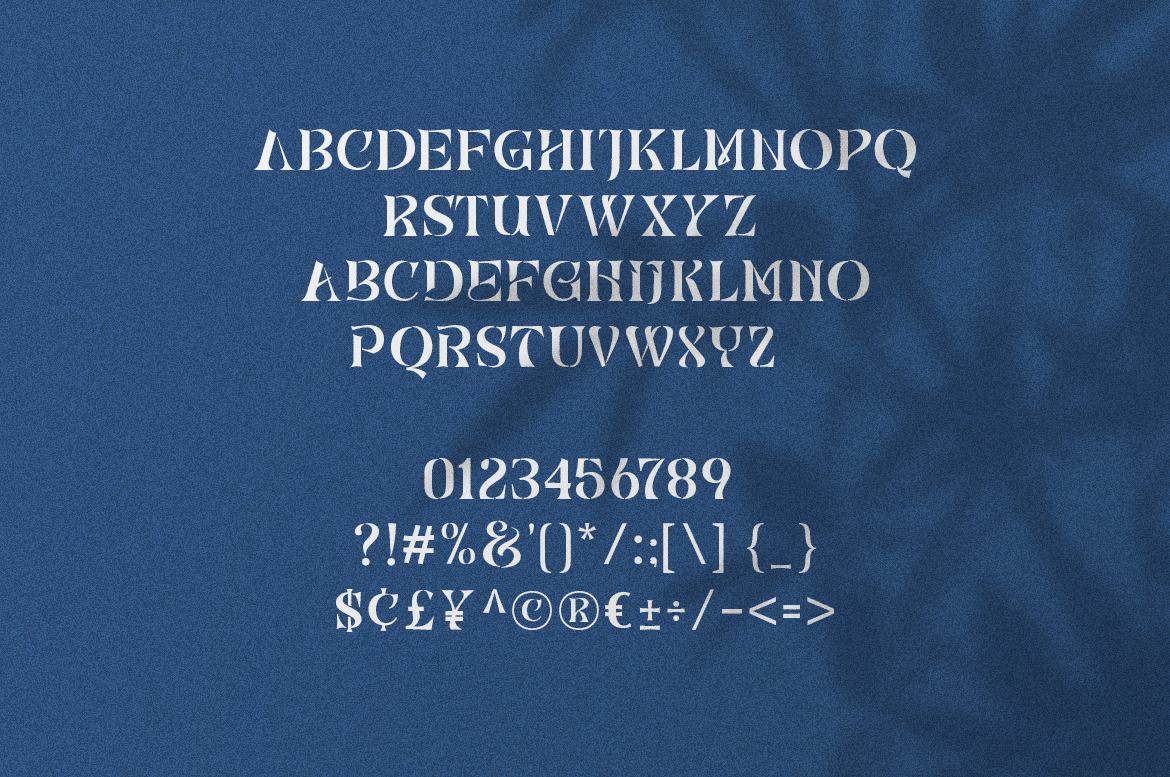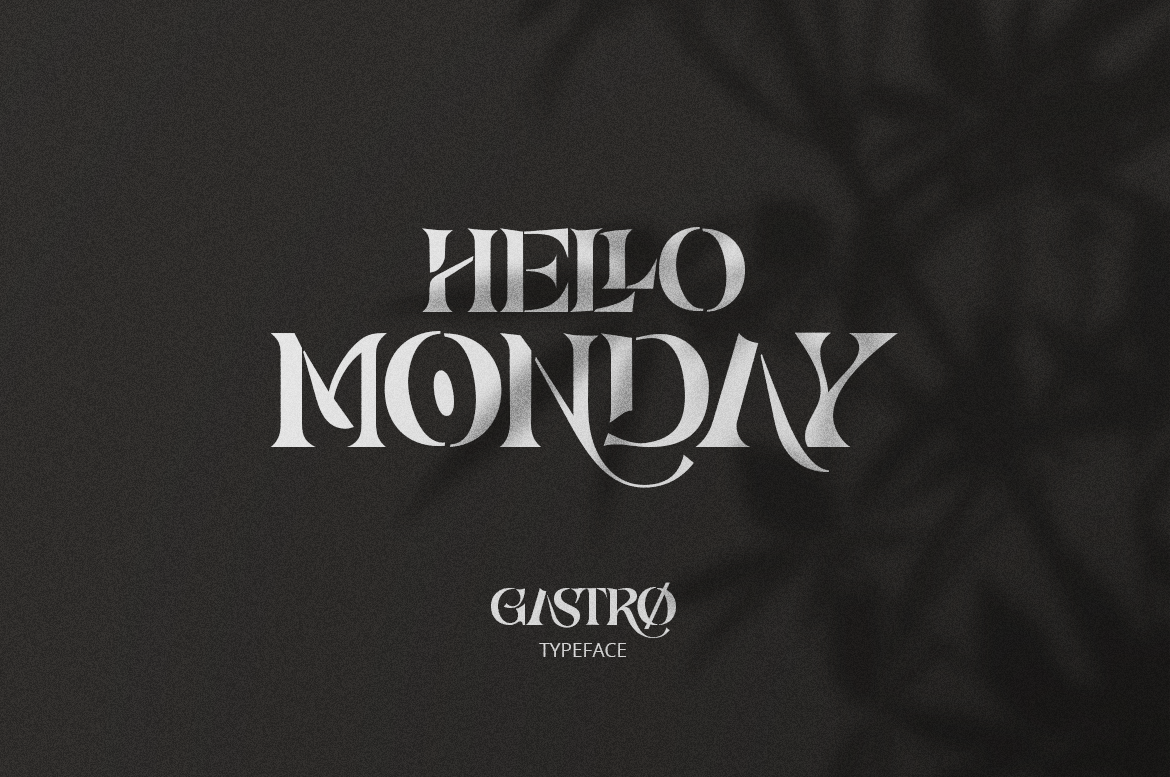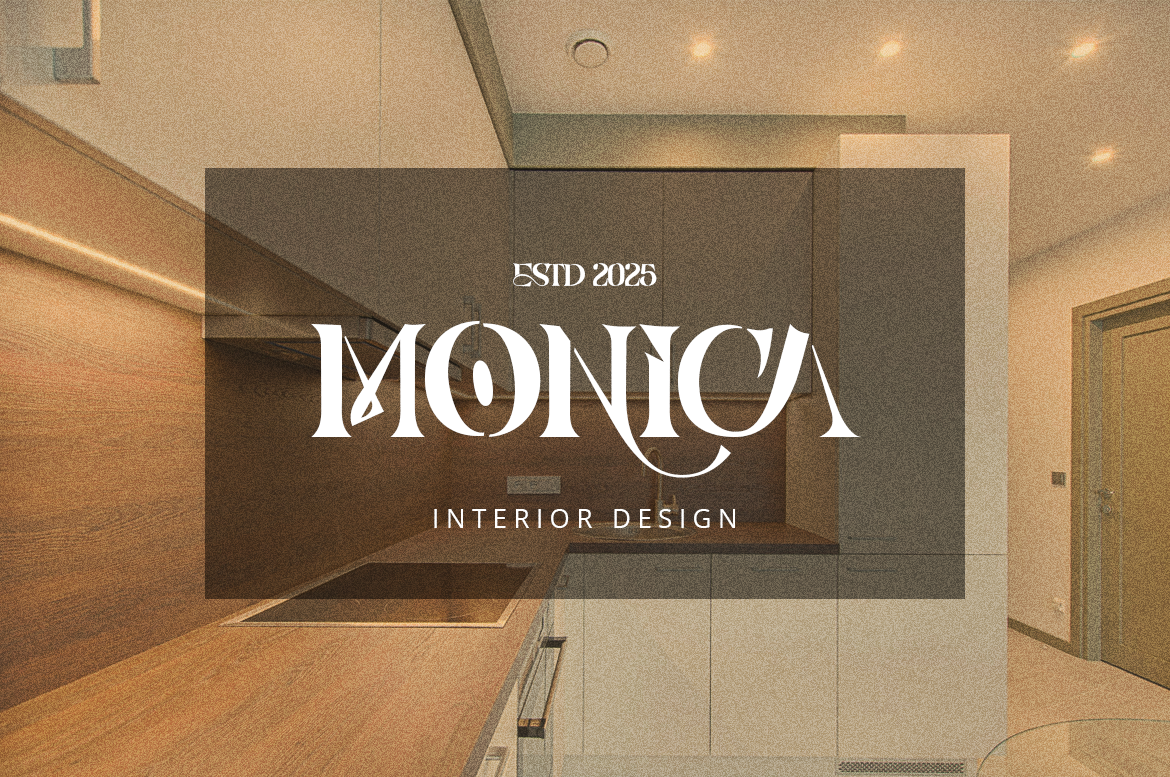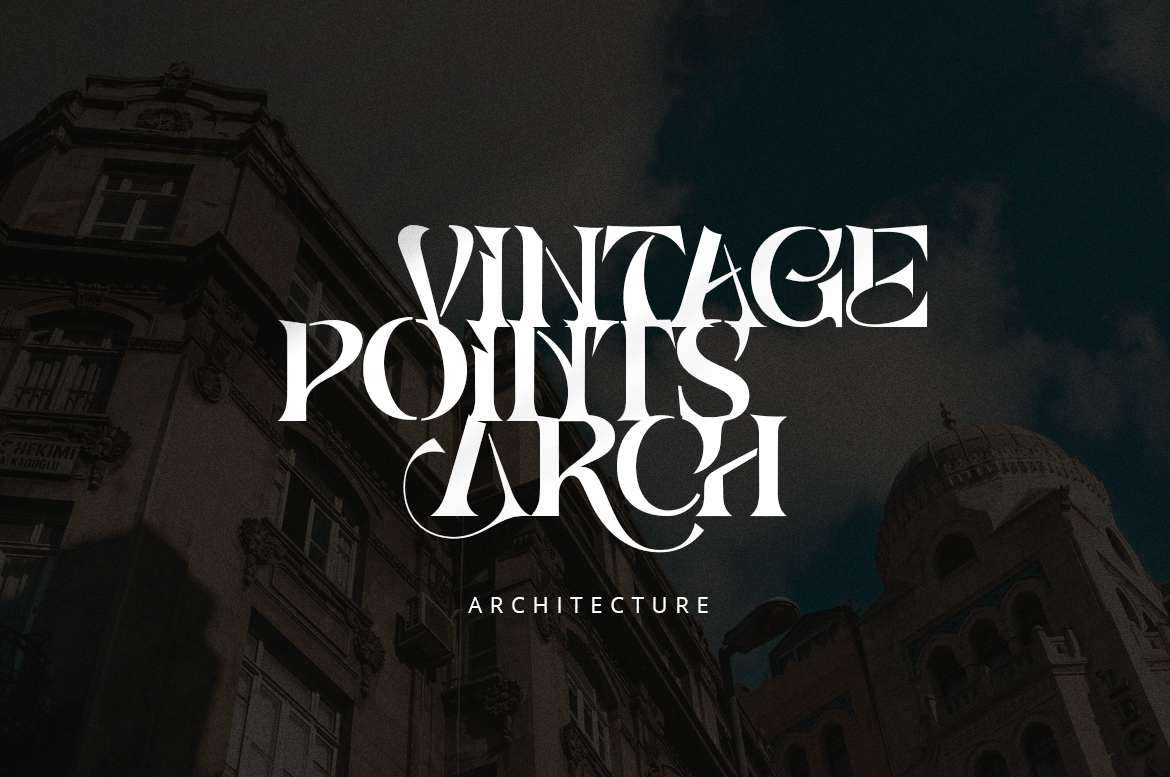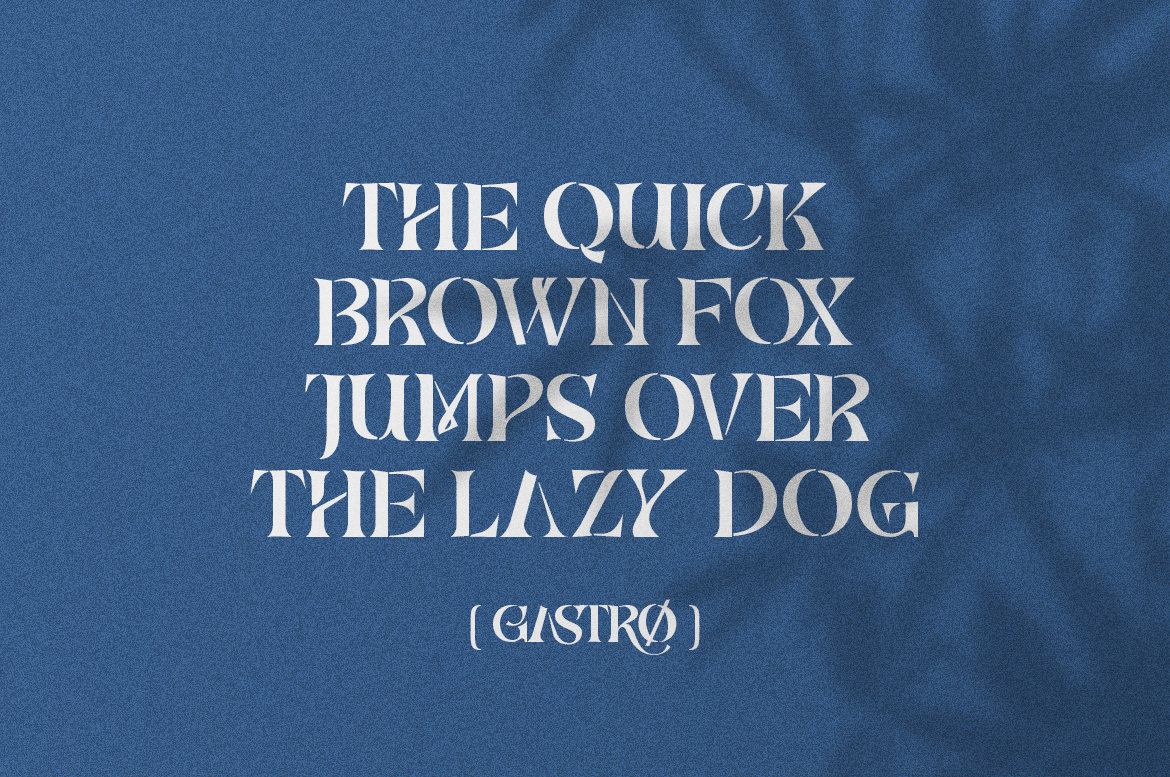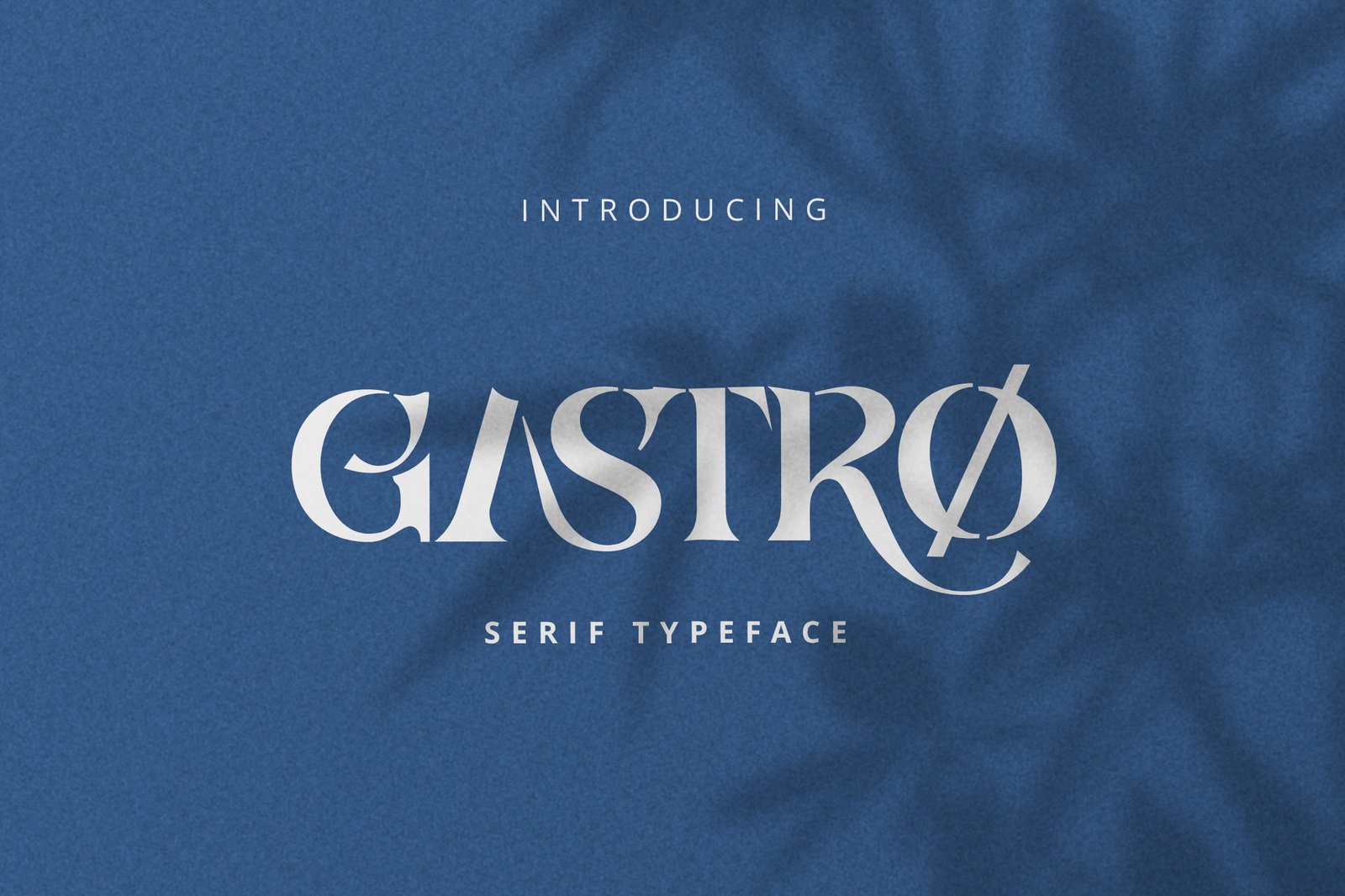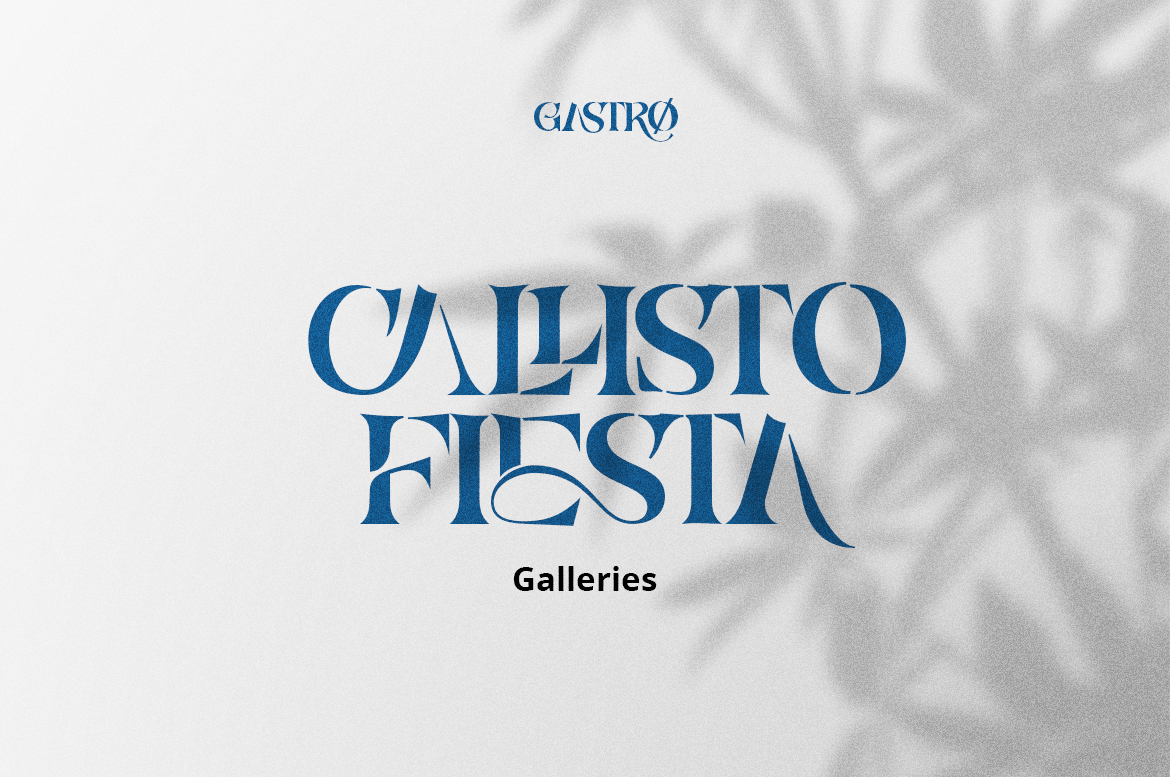
Gastro - Unique Serif Font
Gastro is a tough and distinctive serif typeface, characterized by its all-caps design, making it perfect for attention-grabbing headlines and impactful branding. The font is enhanced with unique ligatures and alternates, offering a stylish and creative flair that sets it apart. Its strong, bold lines combined with the elegant serif detailing make Gastro a versatile choice for projects that require both sophistication and a bold visual presence. Whether used in print or digital media, Gastro ’s robust design ensures readability while adding a touch of uniqueness with its special ligatures and alternate characters._
- All Caps Serif Font
- Basic Latin Glyphs
- Unique Characters
- ligatures & Alternates
- Numeral and Punctuation
- Currencies
* Multilingual Support